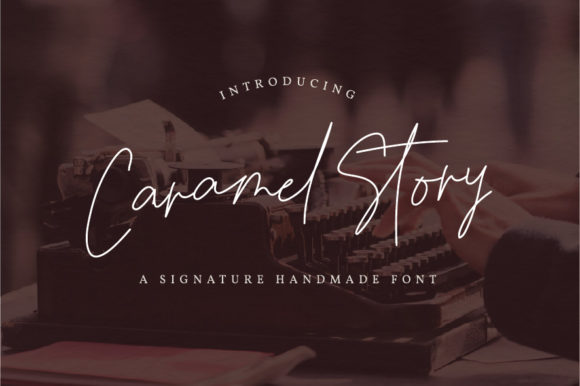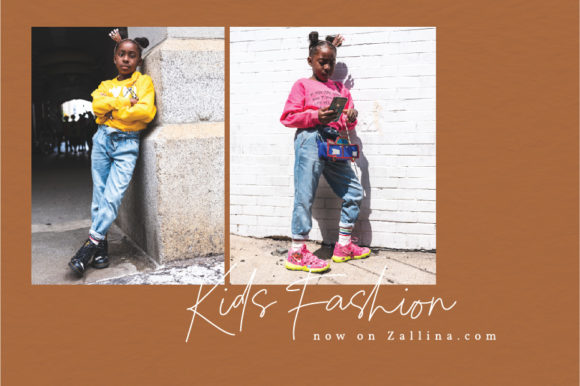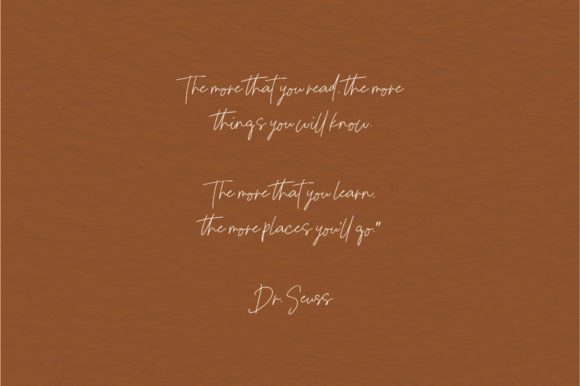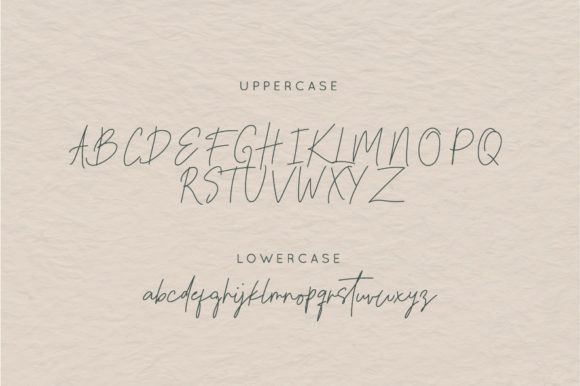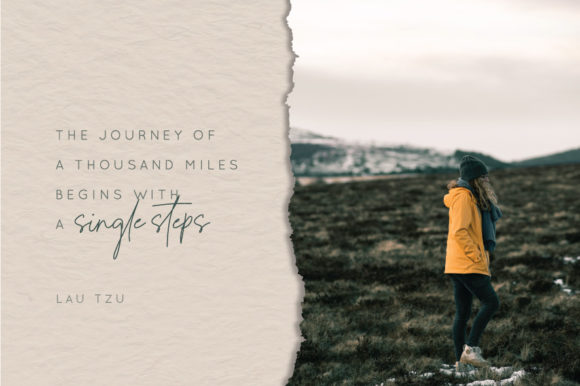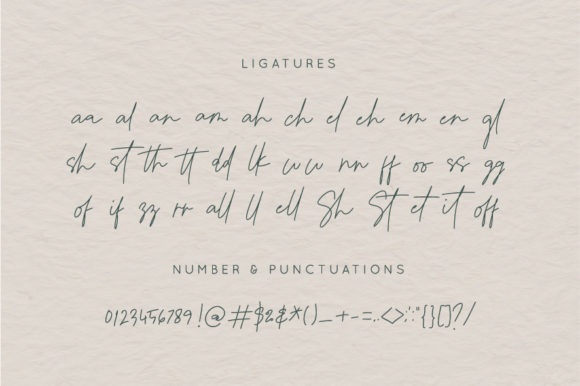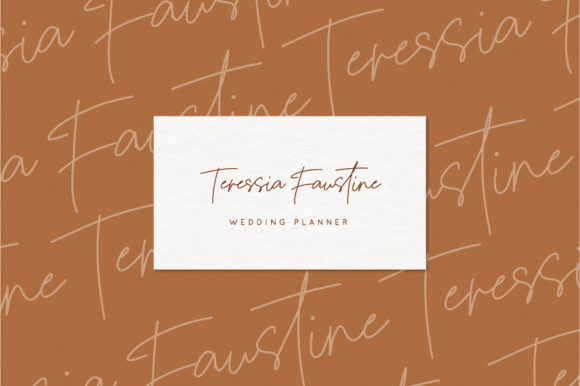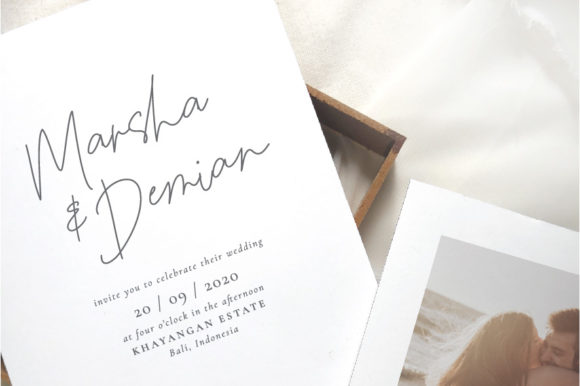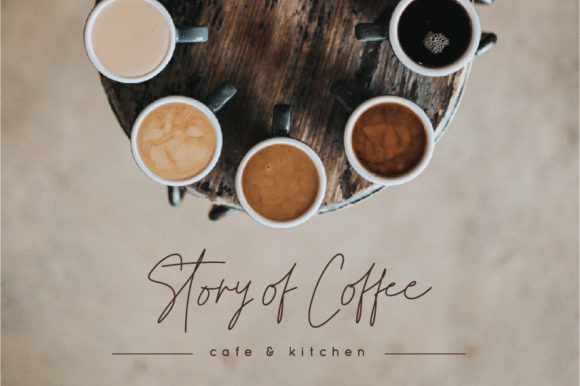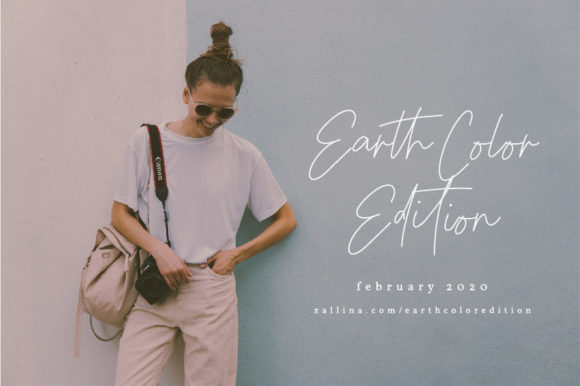
Caramel Story Font
About Caramel Story Font
Introducing Caramel Story is a signature handwritten font with modern style.
It is perfect for logos, fashion branding projects, wedding invitations and much more.
Includes 33 ligatures.